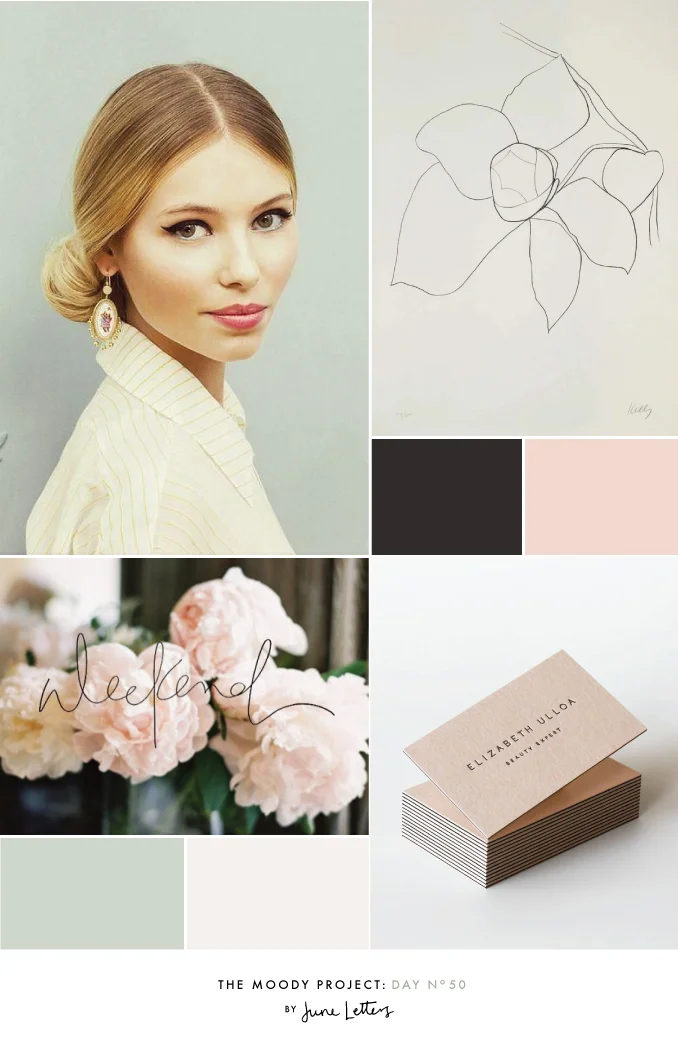
The Moody Project: Day 50
Woohoo! I am half-way through this project. I can't believe I have been making these for 50 days. For day 50 I decided to go all out feminine. Peonies, peachy-pink, delicate script, and a beautiful image of a woman with 1950's inspired styling - super girly :)